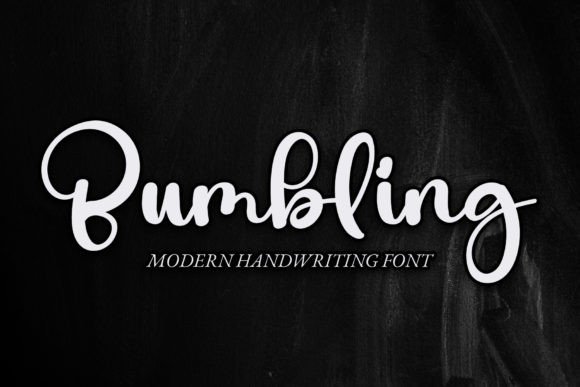
The Bumbling Font: A Designer’s New Best Friend
I’ll never forget the time I was working on a wedding invitation project, and my client asked for a font that was both elegant and playful. I scoured the internet, tried out dozens of fonts, but nothing seemed quite right. That was until I stumbled upon the Bumbling font. 💕
This beautiful, handwritten typeface has become a staple in my design toolkit, and I’m excited to share it with you. In this article, we’ll dive into the world of Bumbling, exploring its features, how to use it, and where it fits into your design workflow.
An Honest Review of Bumbling Font
- ✨ Elegant and delicate handwritten style, perfect for a variety of design projects
- 💻 Highly versatile, suitable for logos, branding, social media posts, advertisements, business cards, and more
- 👰 Beautifully suited for wedding invitations, product design, and other creative projects
While Bumbling is an amazing font, there are a few things to keep in mind:
- ⚠️ As with any script font, it may not be the best choice for body text or long blocks of content
- 🤔 Some users may find the font a bit too delicate for certain design applications
The Story Behind Bumbling Font
Bumbling was designed with love and care by a talented typographer who’s passionate about creating beautiful, functional fonts. The designer’s goal was to create a font that’s both elegant and approachable, perfect for a wide range of design projects.
Q: What is the Bumbling font best used for?
A: Bumbling is a versatile font that’s suitable for logos, branding, social media posts, advertisements, business cards, wedding invitations, product design, and more.